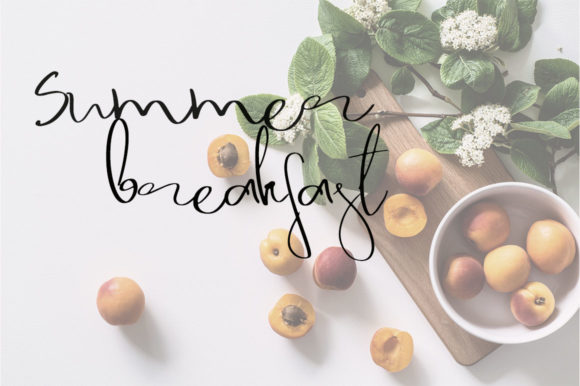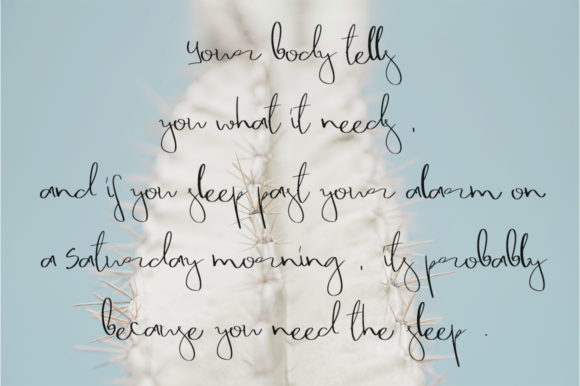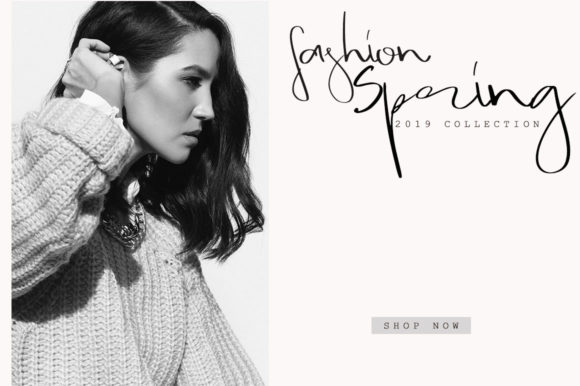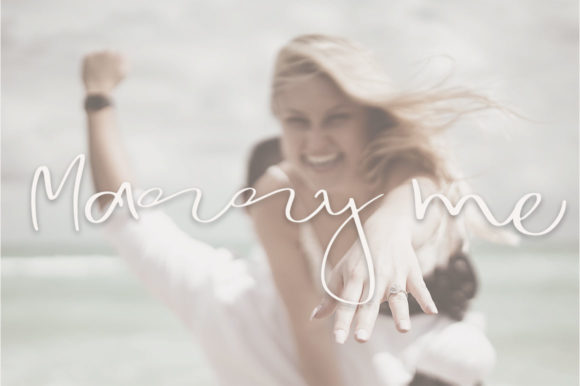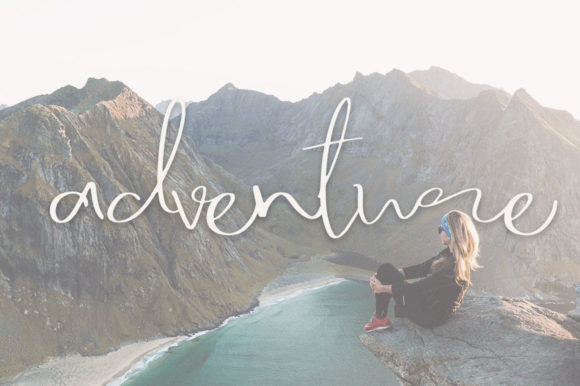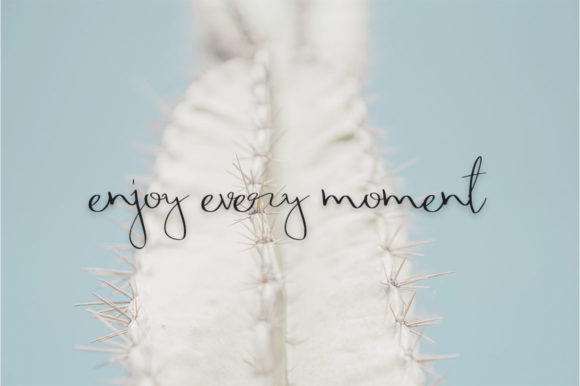
Introduction to Mopena Font
Have you ever stared at a blank page, waiting for inspiration to strike? That’s exactly where I was when I first laid eyes on the Mopena Font. Its beautiful, handwritten script seemed to whisper “create something beautiful” in my ear. As a designer, I know that sometimes all it takes is the right tool to spark a creative project.
The Mopena Font is a high-quality design resource that can elevate your work to the next level. With its versatility and unique style, it’s perfect for logos, watermarks, quotes, and more. Whether you’re working on a free download or a paid project, this font is sure to make a statement. Plus, its transparent background makes it easy to use on any design surface.
For designers, the Mopena Font is a valuable asset that can help bring your vision to life. Its modern, handwritten feel adds a touch of personality to any design, making it a must-have for anyone looking to stand out in the creative world.
Key Features of Mopena Font
- Comes with a transparent background, allowing for easy integration into various design elements.
- Designed with precision, offering a resolution of 300 DPI for crisp and clear typography.
- Unique characteristics include a modern and sleek aesthetic, making it perfect for contemporary designs.
- Supports a wide range of languages, making it a versatile design resource for global creative projects.
Honest Review: Mopena Font
I recently stumbled upon the Mopena Font while searching for a high-quality design resource for a creative project. I was immediately drawn to its modern and sleek aesthetic, making it perfect for a wide range of applications. ✨
- The font’s transparent background makes it incredibly versatile and easy to work with.
- The font is available in a range of weights and styles, providing endless possibilities for creative expression.
However, I did encounter a few limitations while using the Mopena Font. ⚠️ The font’s legibility can be a bit of an issue at smaller font sizes, which may require some additional styling to compensate.
Overall, I’m quite impressed with the Mopena Font. Its modern design, high-quality aesthetic, and transparent background make it a valuable addition to any design arsenal. While it may have some limitations, it’s definitely worth considering for your next creative project.
Tips and Best Practices
For the best results, use the Mopena Font on a transparent background to give your design a clean and modern look. Experiment with different font sizes and styles to add visual interest to your creative project.
The Mopena Font is ideal for various design projects, including logos, branding materials, and digital graphics. Its high-quality design makes it a great resource for professionals and hobbyists alike.
Alternatives to Mopena Font
Oswald is a sans-serif font known for its high-quality design and versatility. It’s perfect for use in digital products, logos, and creative projects where a clean and modern look is desired. Oswald’s strong lines and geometric shapes make it an excellent choice for headings and titles. Compared to Mopena Font, Oswald has a more dramatic feel and is ideal for projects requiring a bold and attention-grabbing look.
Montserrat is a geometric sans-serif font designed for urban environments. It’s a popular design resource among designers and is suitable for use in digital and print projects. Montserrat’s unique characteristics make it an excellent choice for creative projects requiring a modern and edgy look. When compared to Mopena Font, Montserrat has a more condensed feel and is ideal for use in titles, headings, and body text where a high level of readability is required.
Merriweather is a classic serif font known for its elegant and sophisticated design. It’s a popular choice among designers for use in high-quality print projects and digital products. Merriweather’s traditional feel makes it an excellent choice for creative projects requiring a timeless and sophisticated look. Compared to Mopena Font, Merriweather has a more formal feel and is ideal for use in projects requiring a high level of professionalism and sophistication.